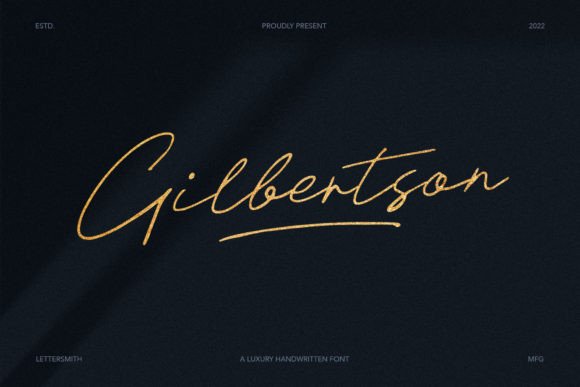
About Gilbertson Font
Gilbertson is an elegant and chic handwritten font. Use it for any design projects that require a classy appearance! Gilbertson is perfect forlogos, branding, wedding invitations, business cards, greeting cards, signboards, posters, magazines, social media, planner prints, crafting, and websites.